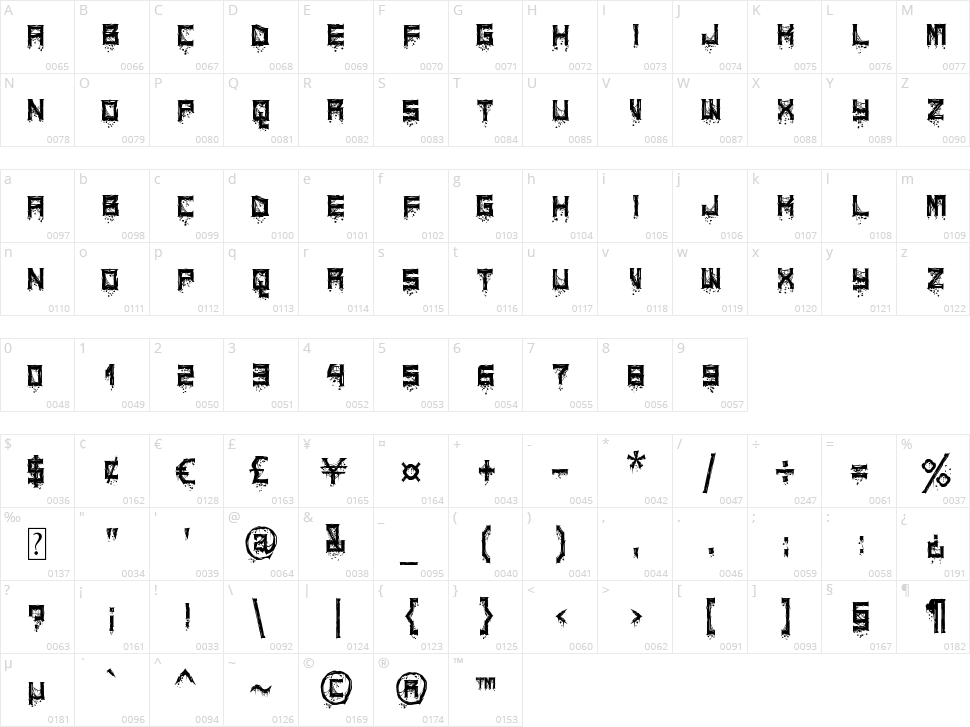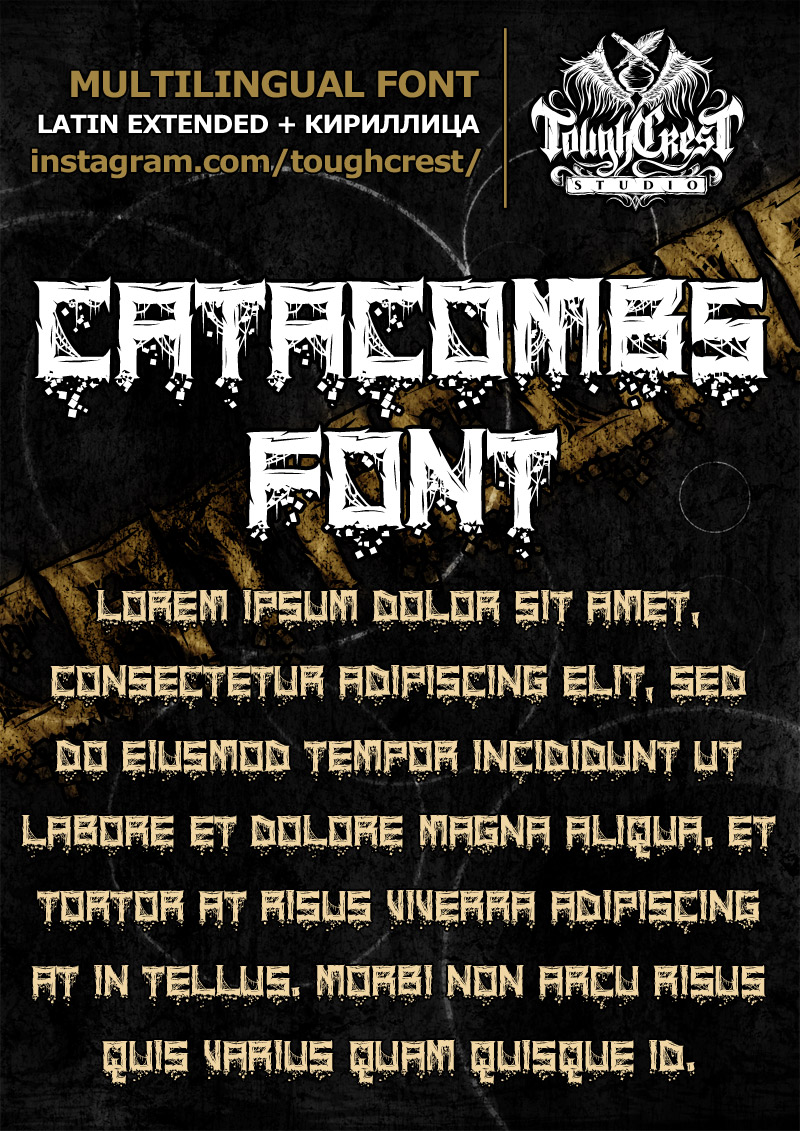
Catacombs
Note of the author Dark and moody, cracked and falling apart font.
LANGUAGE SUPPORT:
English, German, Russian, Swedish, Norwegian-Danish, Icelandic.
Including Numbers, Currencies, Punctuation, Basic math symbols.
*** This font also has been successfully tested on articles in:
Spanish, Italian, French, Ukrainian, Polish, Czech, Portuguese, Hungarian, Slovenian, Slovak, Turkish.
It should work correctly, but those are languages i'm not familiar with, so i might have missed some symbols. I will be supporting my fonts so the symbols will be added based on users reports.